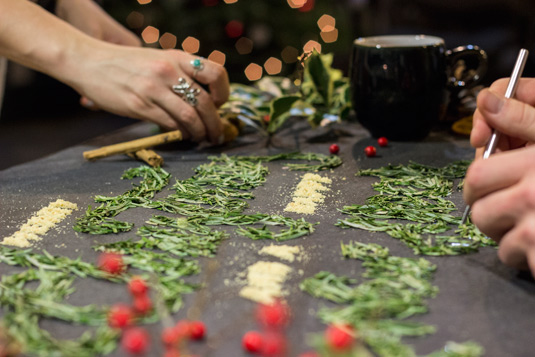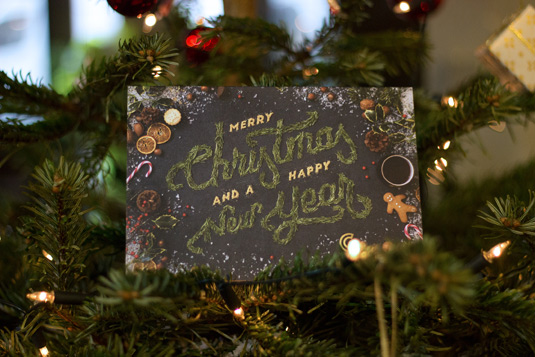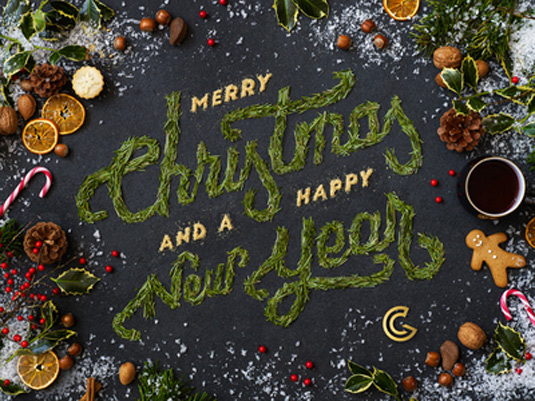
This festive font will get you ready for Christmas
Ring in Christmas with this beautifully handcrafted typography made out of seasonal favourites.
With Christmas only just around the corner, there's no better time to enjoy this wonderful typography from Bristol-based design agency Green Chameleon.
We've already seen how tasty typography can whet your appetite, so hopefully these festive words made from pine needles, holiday treats and sprigs of holly will get you in the mood for the big day.
Green Chameleon turned this image into a printed Christmas card for their clients, friends and family. Taking three hours to complete before being photographed, this card also includes a custom lettering design.